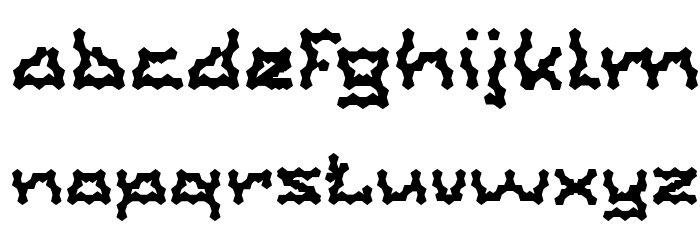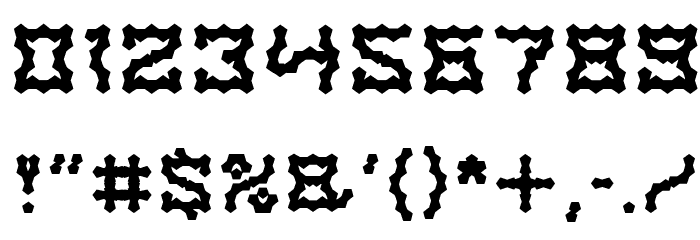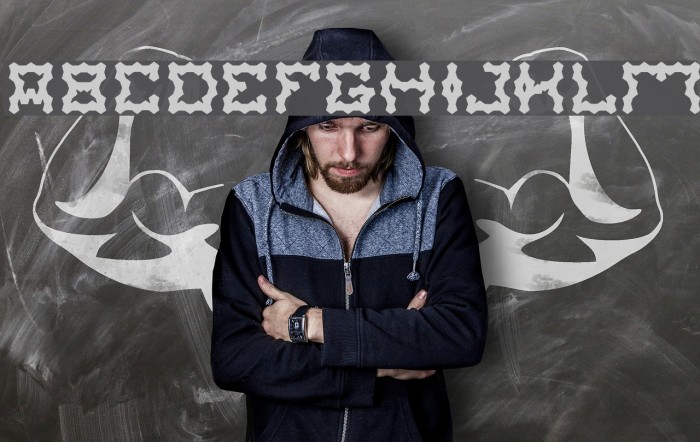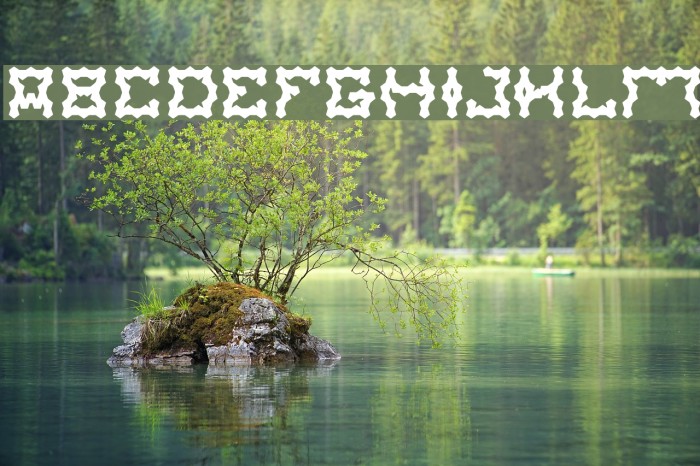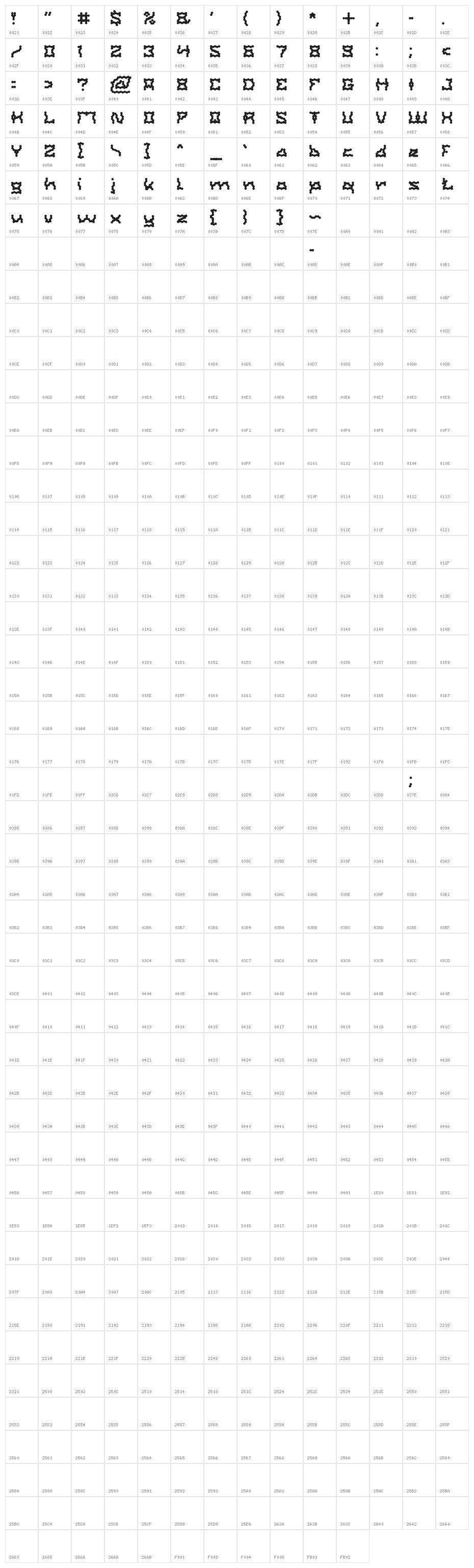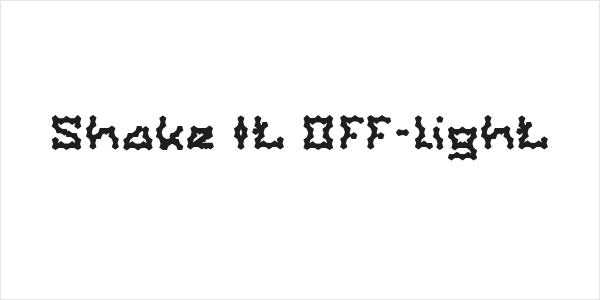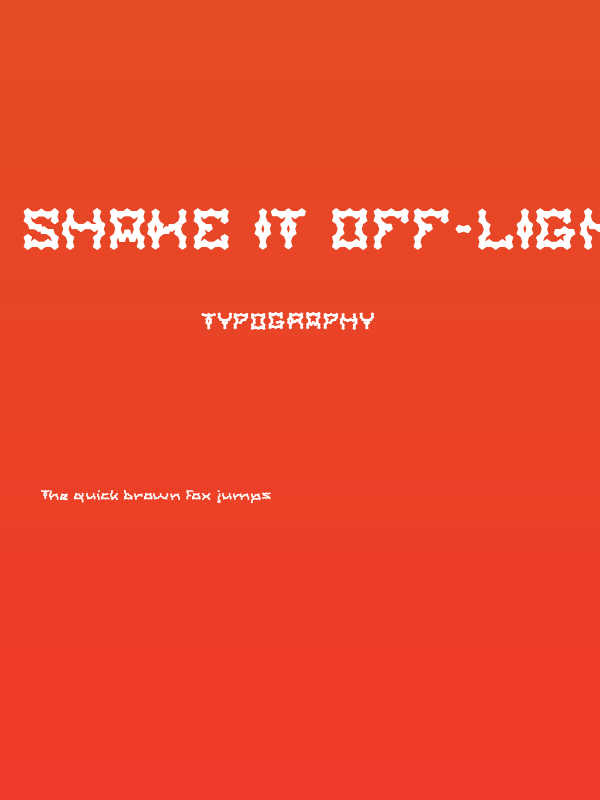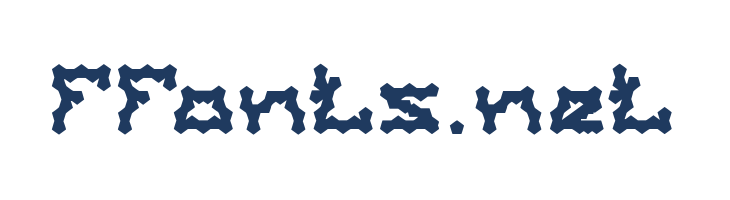
Shake It Off-light Font
This font features a unique, jagged design that gives it a playful and dynamic appearance. The characters are bold and irregular, with sharp edges and a slightly chaotic structure, reminiscent of a hand-drawn style. The uppercase and lowercase letters maintain a consistent height, while the numbers and special characters follow the same edgy theme. The overall look is both eye-catching and unconventional, making it suitable for creative and informal projects. Its distinct style ensures that it stands out, making it a great choice for attention-grabbing designs.
A bold, jagged font with a playful, hand-drawn appearance.
- Proposed Projects: Ideal for posters, album covers, children's book titles, and creative branding.